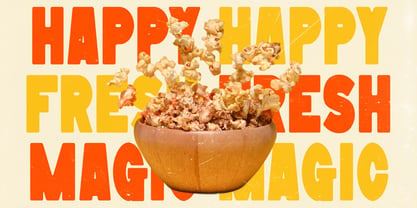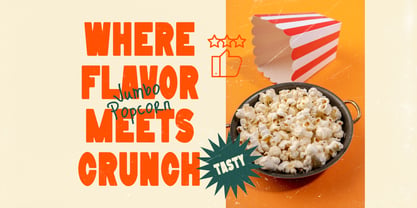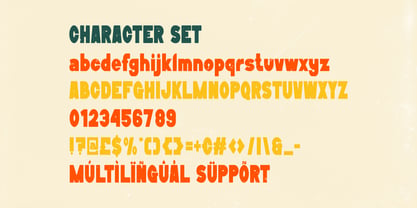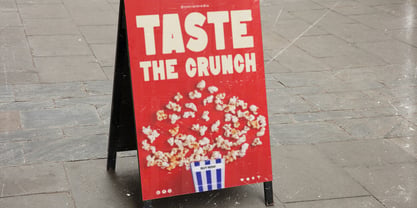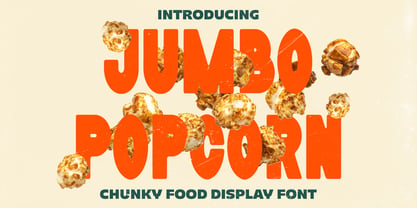
Jumbo Popcorn
La familia tipográfica Jumbo Popcorn fue diseñada por Yesie Erma Yunita y publicada por Shanaf. Jumbo Popcorn contiene 1 estilos. Más información sobre esta familia
Jumbo Popcorn Chunky Food Display Font is designed with wide proportions and a heavy visual weight. Each character feels solid and confident, with rounded edges and compact spacing that create a bold silhouette. The letter height stays consistent, supporting stable rhythm across words. Stroke thickness remains uniform, giving the font a strong presence without visual noise. Subtle roughness in the contours adds character while keeping clarity intact. The overall structure feels sturdy, friendly, and intentionally oversized. This balance helps text remain readable even at large display sizes. Numbers and symbols follow the same chunky logic, ensuring visual consistency across layouts. The style leans playful, quirky, and energetic, making it ideal for food-related communication. Jumbo Popcorn Chunky Food Display Font excels in projects that need instant attention and emotional warmth. It works especially well for food packaging, snack branding, menus, posters, and promotional headlines. The bold shapes help titles stand out in crowded visual spaces. For food businesses, the font enhances appetite appeal through its fun and approachable tone. It also fits branding systems that target families, casual dining, or street food concepts. The font performs strongly in logos, stickers, book covers, magazines, and advertising materials. Designers can rely on it to deliver personality without sacrificing legibility. Jumbo Popcorn Chunky Food Display Font brings expressive charm to creative projects that value boldness, joy, and visual flavor.